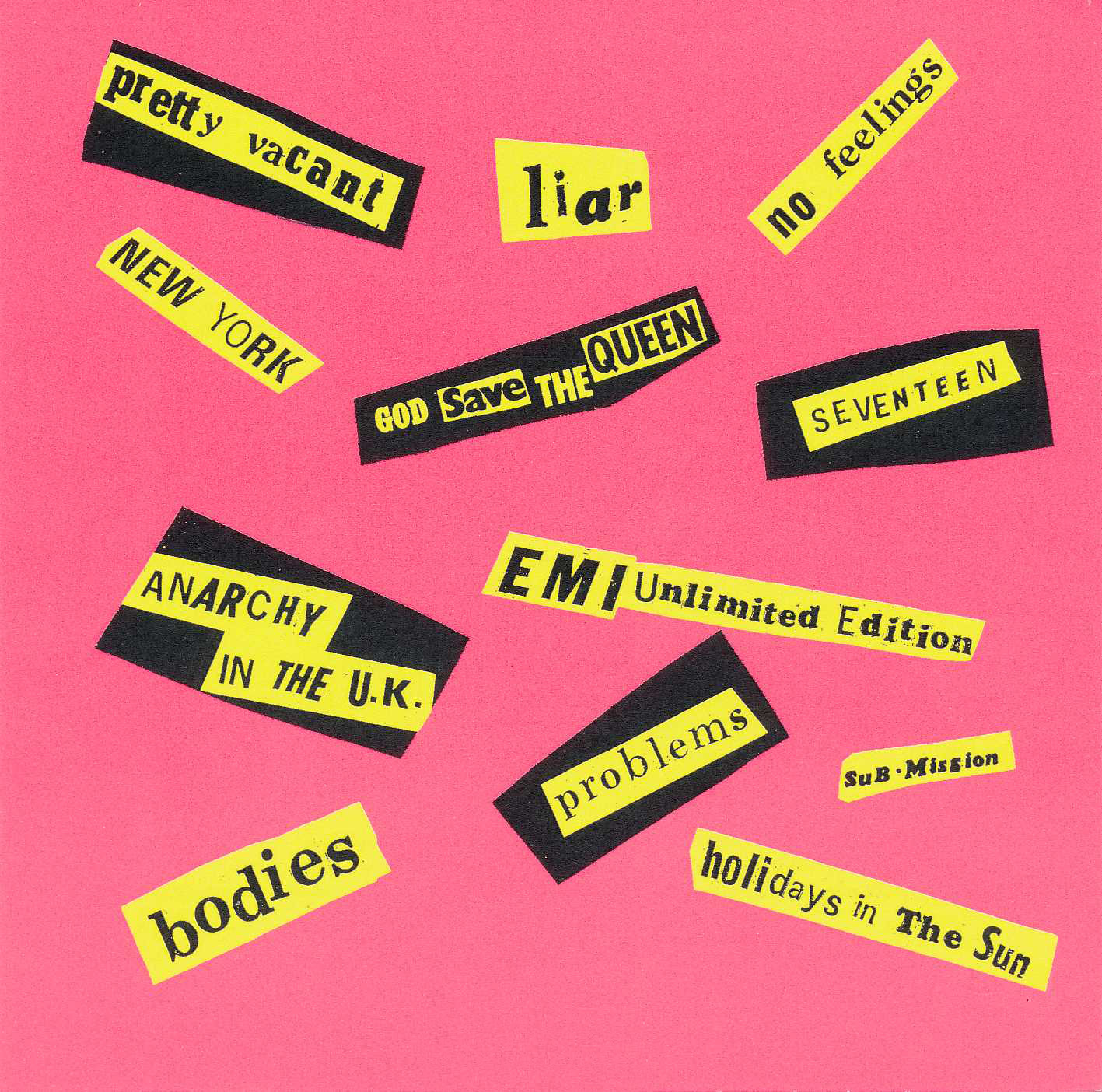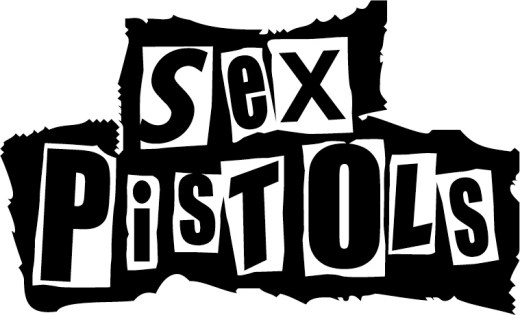
How Punk changed Graphic Design
How Punk changed Graphic Design
Sarah Hyndman on Punk, which first exploded in the 1970s and, at the time, looked like youthful rebellion.
In actuality it was part of the Postmodernist movement which began as a reaction to the rigid restrictions of Modernism. Its DIY ethos encapsulated the anti-establishment mood of the mid 1970s, a time of political and social turbulence. The former British Empire was dissolving and a new era in British music, fashion and design was beginning.
Taking the stage to articulate the feelings of a dissatisfied generation calling for change were the Sex Pistols, who played their first gig in 1975 at St Martins College of Art. Their outrageous behaviour and contempt for established conventions announced the beginning of Punk. The DIY ethos and uncontrolled, home made style was revolutionary at the time and launched a new era in British music, fashion and design.